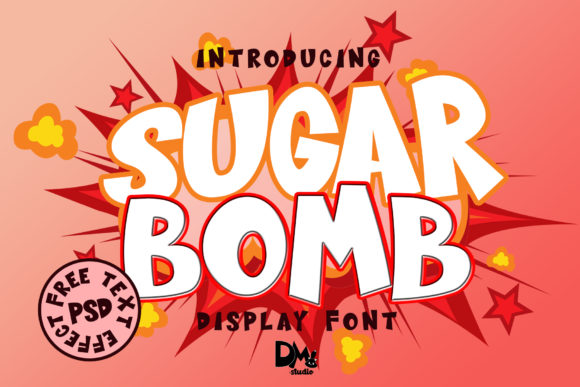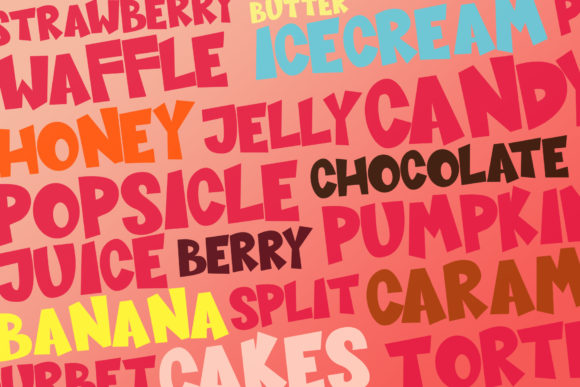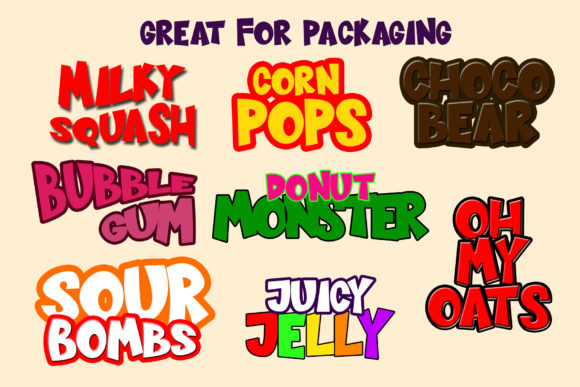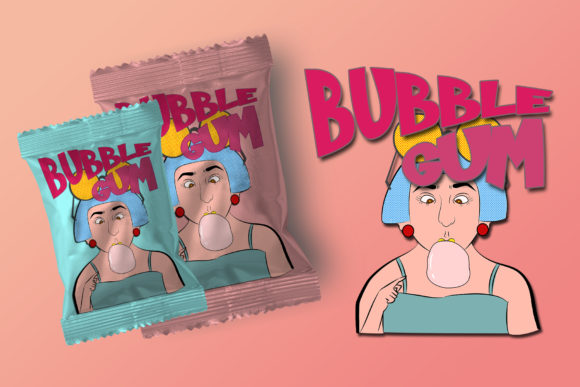
Sugar Bomb Font: A Playful & Bold Display Font for Logos & Branding
About the Sugar Bomb Font
Step up your design game with Sugar Bomb Font, a font that exudes confidence and style. The Sugar Bomb is a fun sans serif font. It’s a comical big-bold font, great for display’s, posters, branding, logos, signs, t-shirts, advertisement, quotes, and much more!
Sugar Bomb Font Usage Examples
Sugar Bomb Font Example